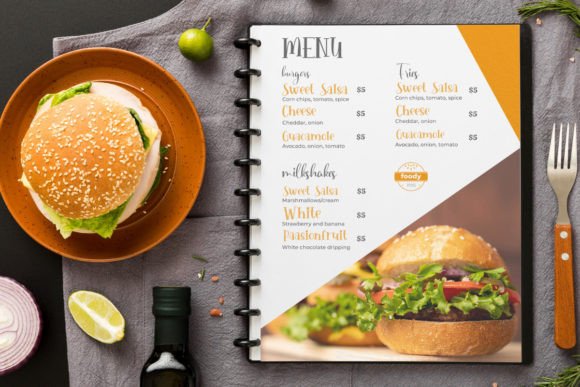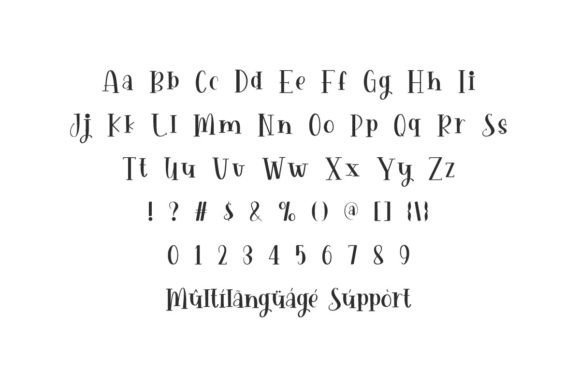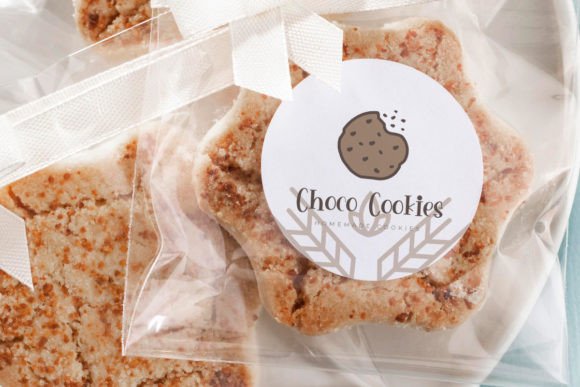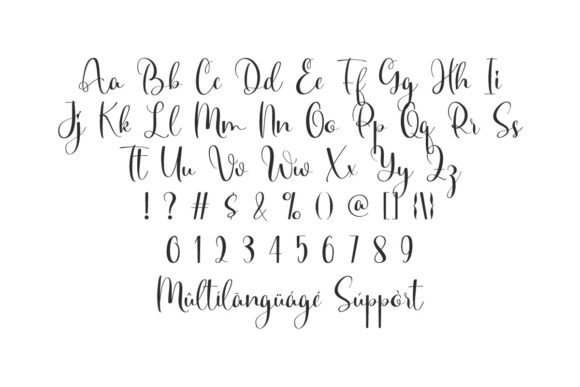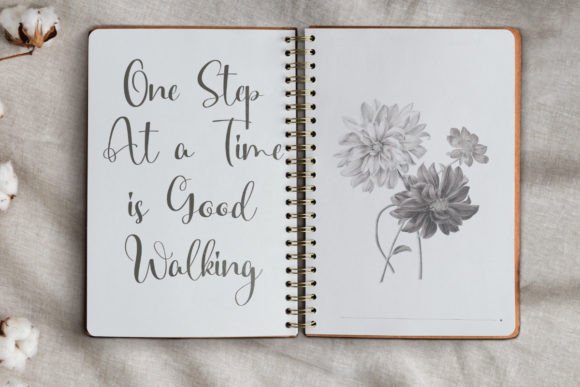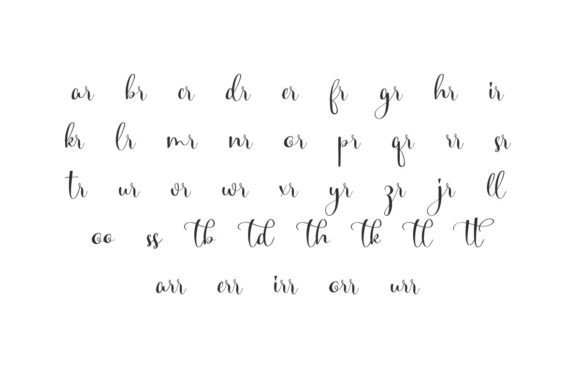
Introducing Always Funny Duo Font: Elevate Your Designs with Playful Elegance
Are you tired of using the same old fonts in your designs? Look no further! The Always Funny Duo Font is here to add a touch of playfulness and elegance to your creations. This versatile font duo consists of a script and a serif font, both of which boast an elegant feel that can complement any design you have. In this article, we’ll dive into the world of Always Funny Duo Font, exploring its unique features, benefits, and uses.
A Perfect Pair: Script and Serif Fonts
The Always Funny Duo Font consists of two distinct fonts: a script font and a serif font. The script font is perfect for adding a personal touch to your designs, while the serif font provides a sense of sophistication and elegance. Despite their differences, both fonts share a common thread – an elegant feel that makes them perfect for a wide range of design applications.
Whether you’re designing a wedding invitation, a logo, or a social media post, the Always Funny Duo Font is sure to make your design stand out. The script font’s playful curves and fluid lines add a whimsical touch, while the serif font’s clean lines and classic style provide a sense of stability and professionalism.
Key Features of Always Funny Duo Font
• Playful and Elegant: The Always Funny Duo Font boasts a unique blend of playfulness and elegance, making it perfect for designs that require a touch of sophistication.
• Versatile: This font duo can be used for a wide range of design applications, from wedding invitations and logos to social media posts and packaging.
• Easy to Read: Both fonts are highly legible, making them perfect for body text and headlines.
• Scalable: The Always Funny Duo Font is highly scalable, ensuring that your designs look great in any size or resolution.
Benefits of Using Always Funny Duo Font
So, why choose the Always Funny Duo Font for your designs? Here are just a few benefits:
• Adds Personality: The Always Funny Duo Font adds a touch of personality to your designs, setting them apart from the crowd.
• Enhances Readability: The serif font’s classic style and the script font’s clear lines make your text easy to read and understand.
• Complements Any Design: The elegant feel of both fonts ensures that they complement any design, from modern and minimalist to vintage and ornate.
• Saves Time: With the Always Funny Duo Font, you can create professional-looking designs in no time, thanks to its ease of use and versatility.
Design Ideas Using Always Funny Duo Font
The Always Funny Duo Font is perfect for a wide range of design applications. Here are a few ideas to get you started:
• Wedding Invitations: Use the script font for the invitation’s main text and the serif font for the details, such as date and time.
• Logos: Combine the script and serif fonts to create a unique and memorable logo for your business or brand.
• Social Media Posts: Use the script font for headings and the serif font for body text to create engaging and easy-to-read social media posts.
• Packaging: Add a touch of elegance to your packaging with the Always Funny Duo Font, perfect for product labels and branding.
In conclusion, the Always Funny Duo Font is a versatile and elegant font duo that’s perfect for designers and crafters looking to add a touch of playfulness and sophistication to their designs. With its unique blend of script and serif fonts, this font duo is sure to complement any design and elevate your creations to the next level. So why wait? Download the Always Funny Duo Font today and start creating stunning designs that stand out from the crowd!